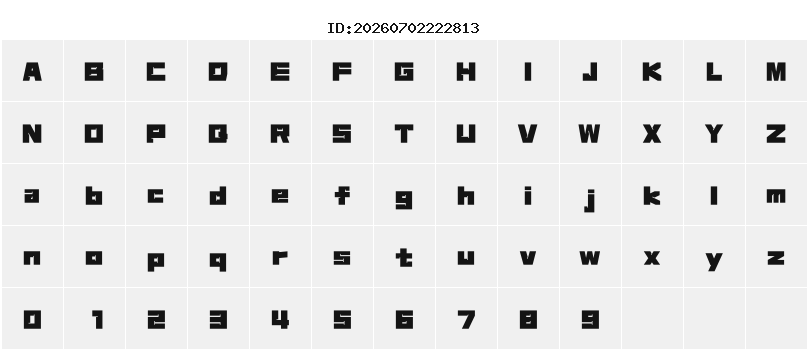
264-上首赛博体 Preview
• Font Name: 264-上首赛博体
• Manufacturer: 上首造字
About 264-上首赛博体.ttf
264-上首赛博体.ttf is a modern, elegant sans-serif font designed for ultimate readability and visual harmony. Perfect for branding, headlines, web design, and print materials.